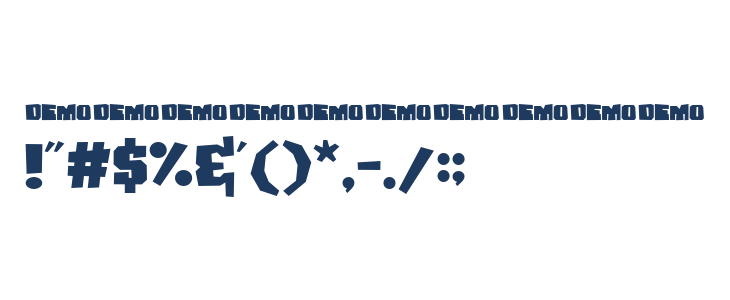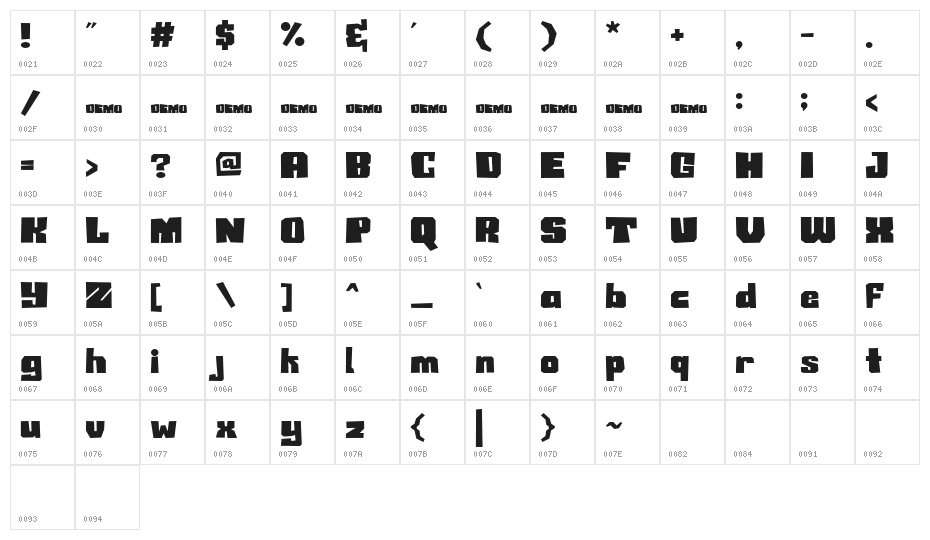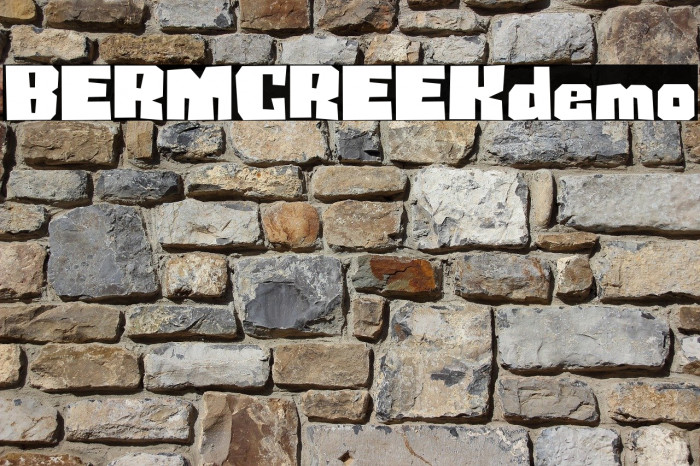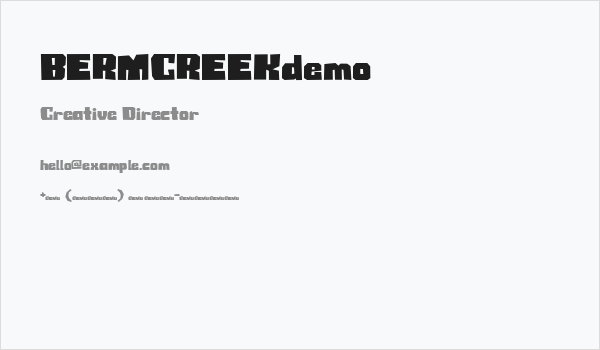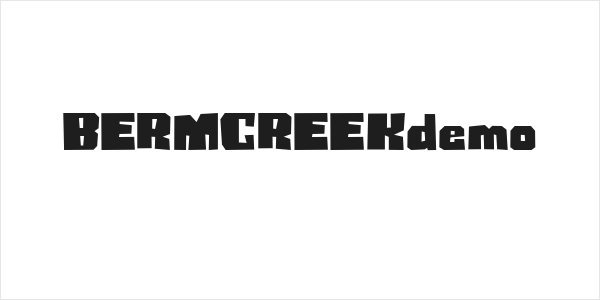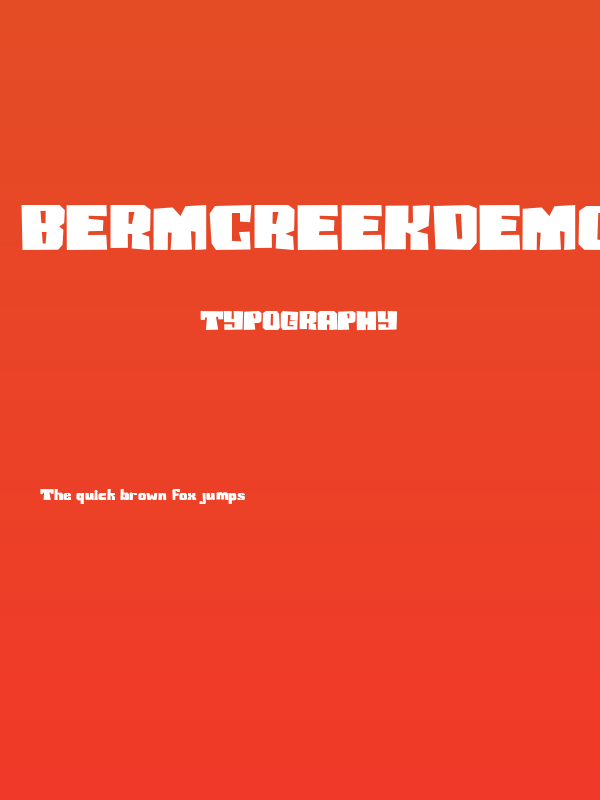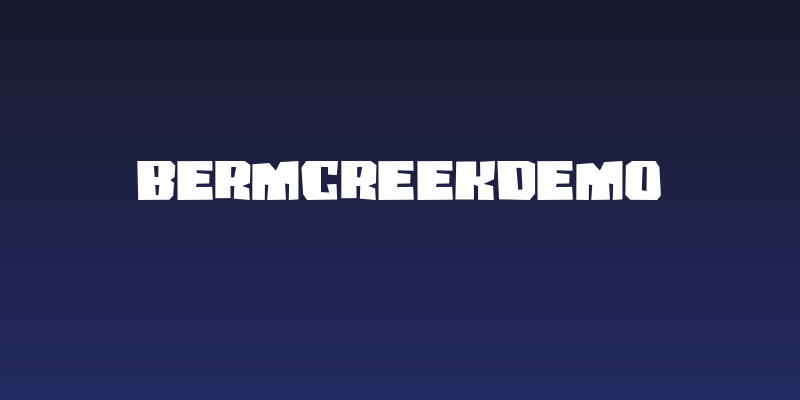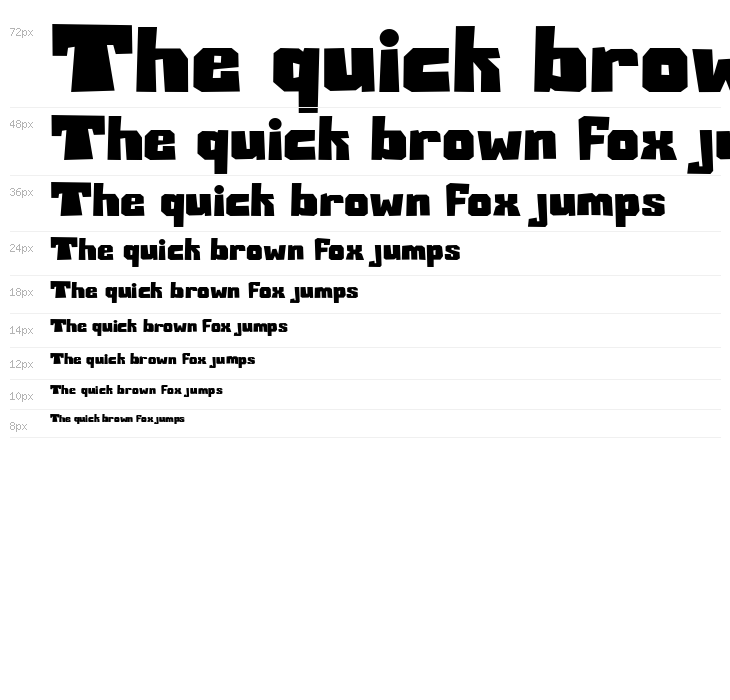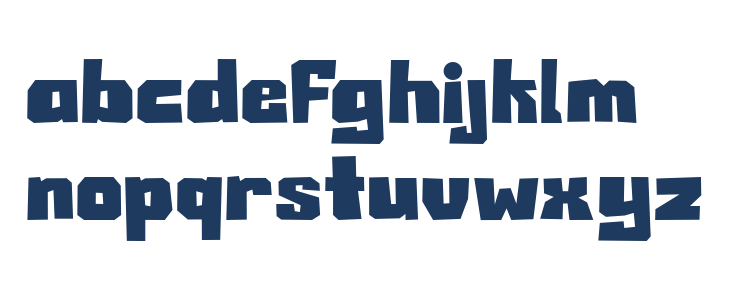
BERMCREEKdemo Font
BERMCREEKdemo Description
This font features a bold and striking design with a distinctly angular and geometric style. The characters are heavily stylized, with sharp edges and a blocky appearance that gives them a strong presence on the page. The uppercase and lowercase letters maintain a consistent weight, contributing to a cohesive look. The numerals and special characters follow the same design principles, ensuring uniformity across all glyphs. This font is ideal for projects that require a bold statement, such as posters, headlines, and branding materials. Its unique style makes it stand out, capturing attention with its unconventional shapes and strong visual impact.
| Proposed Projects | Ideal for posters, headlines, branding, and any project needing a bold visual impact. |